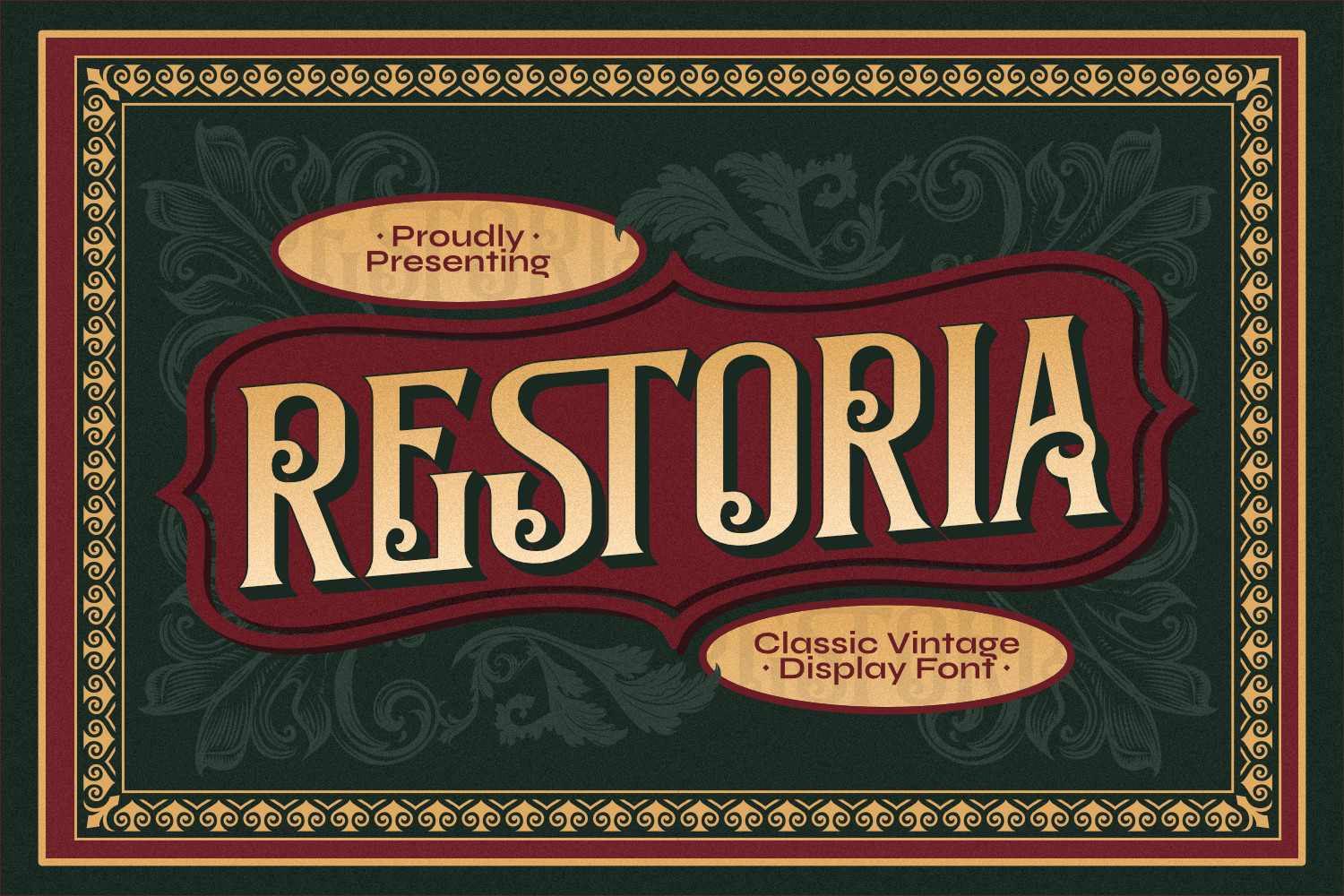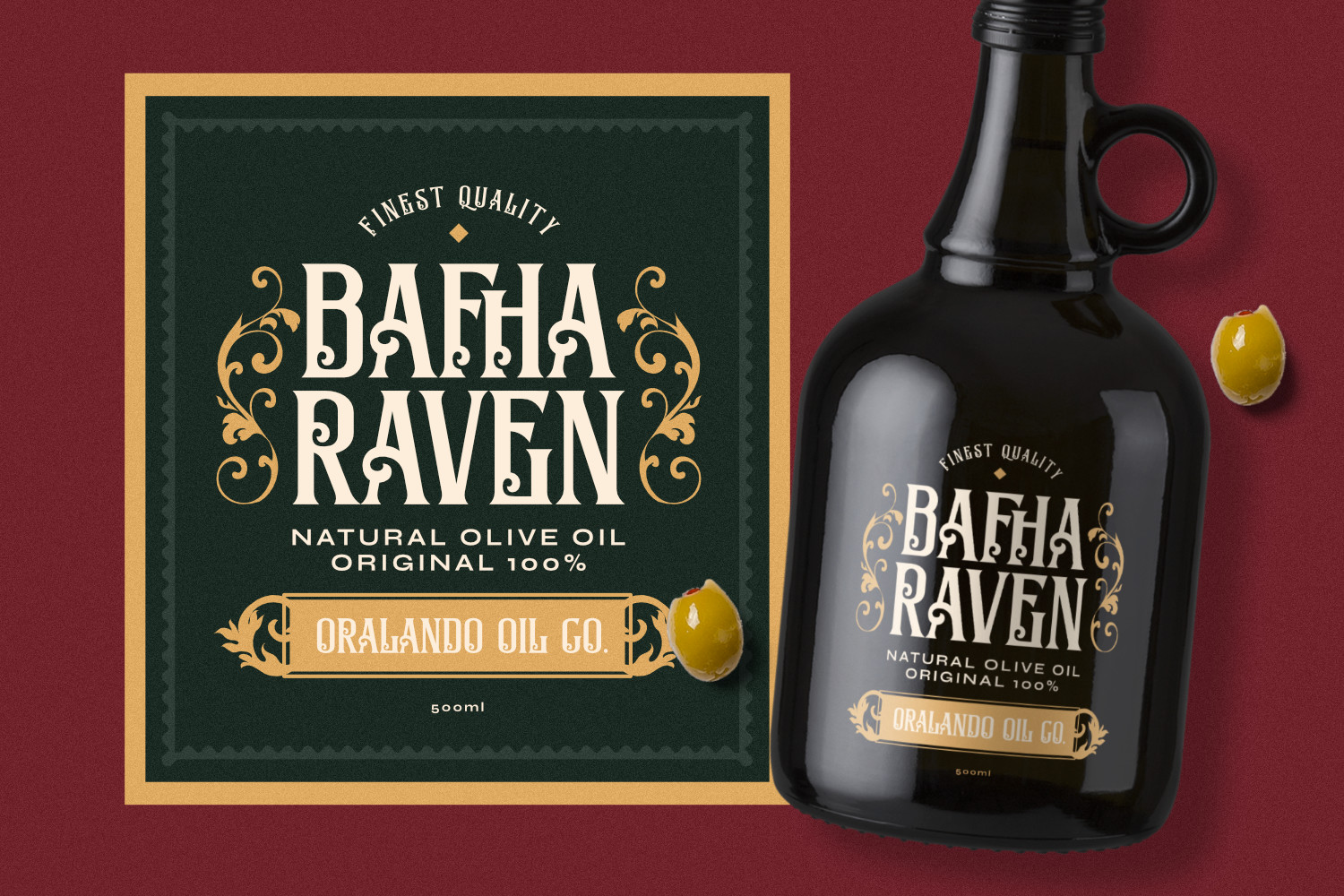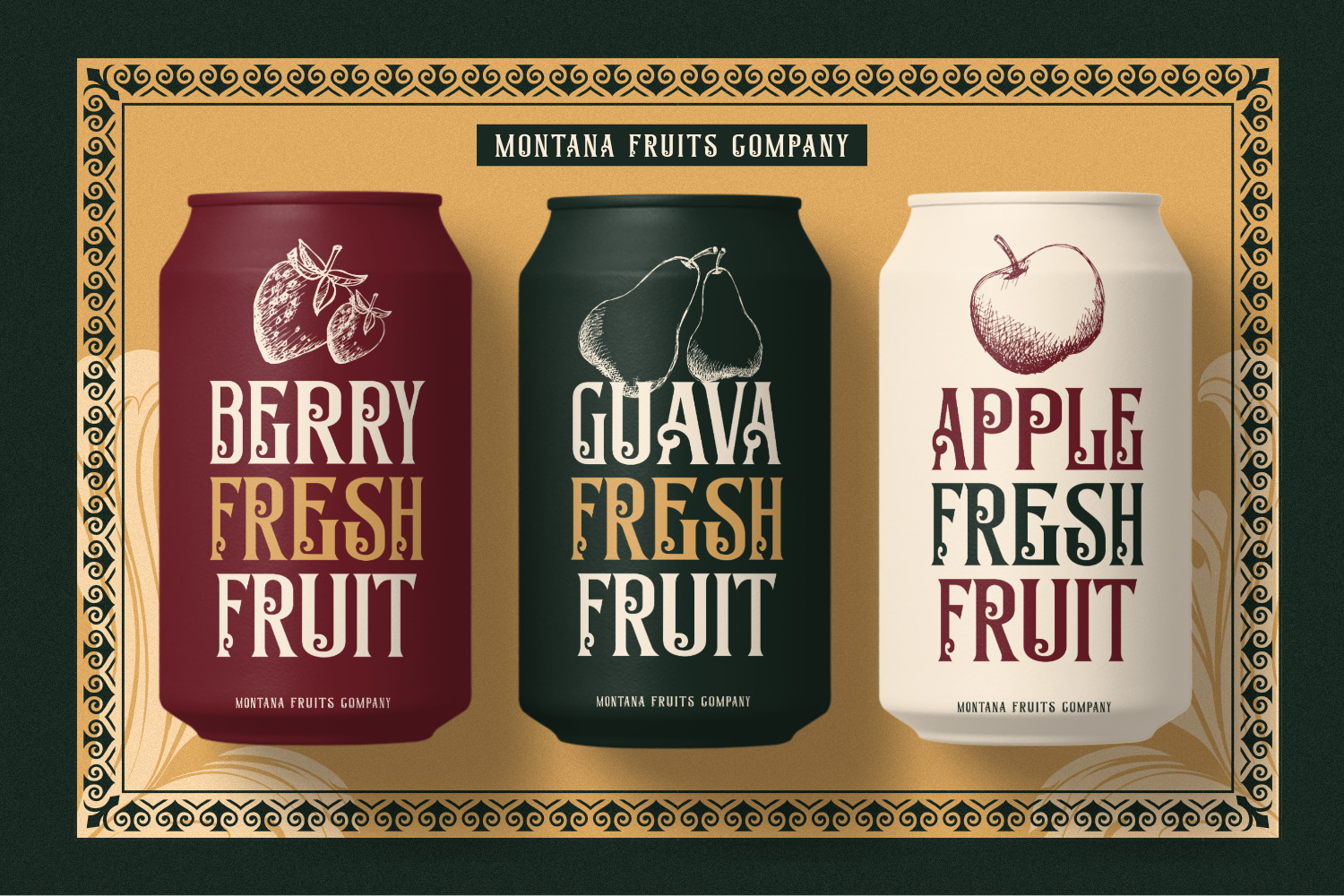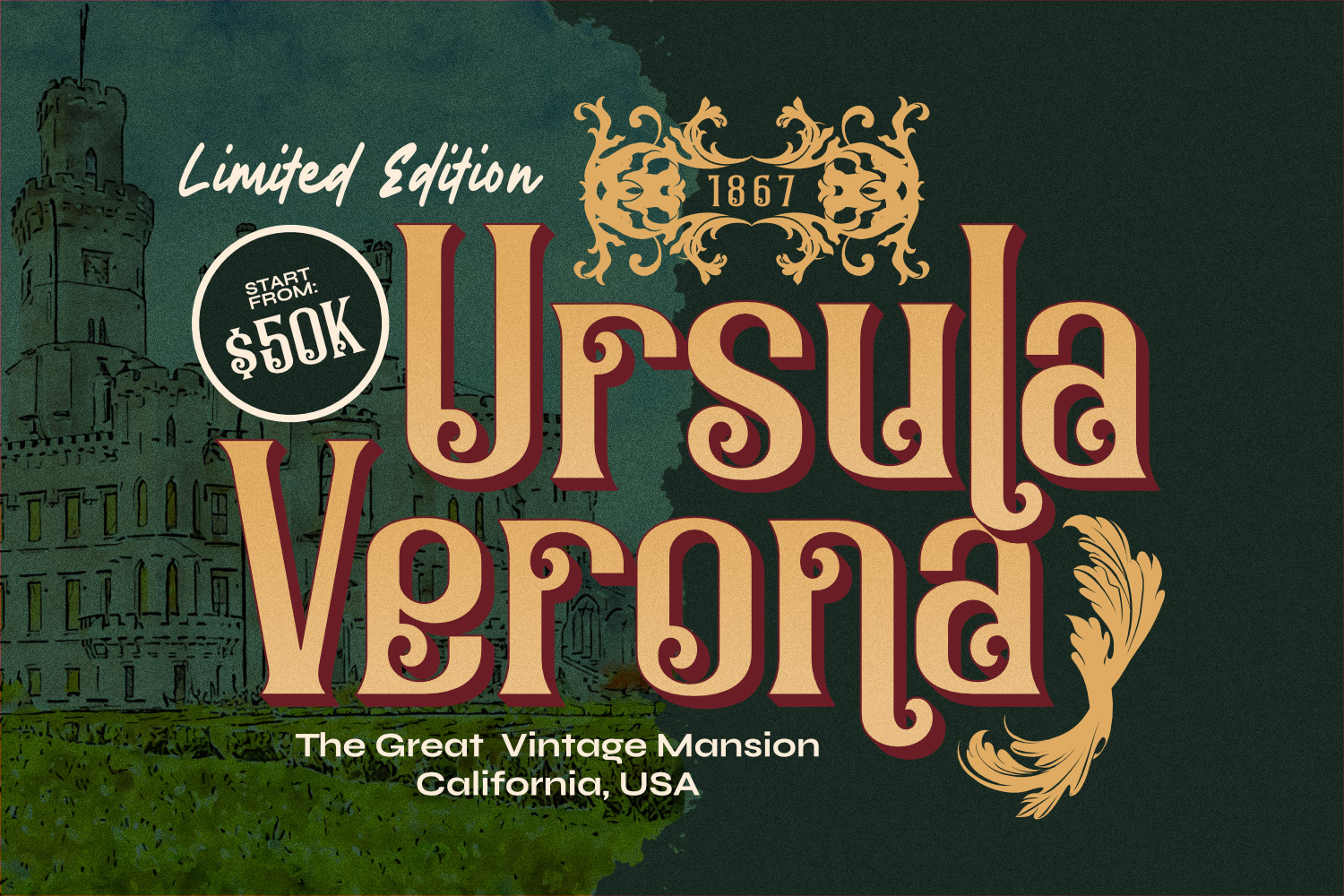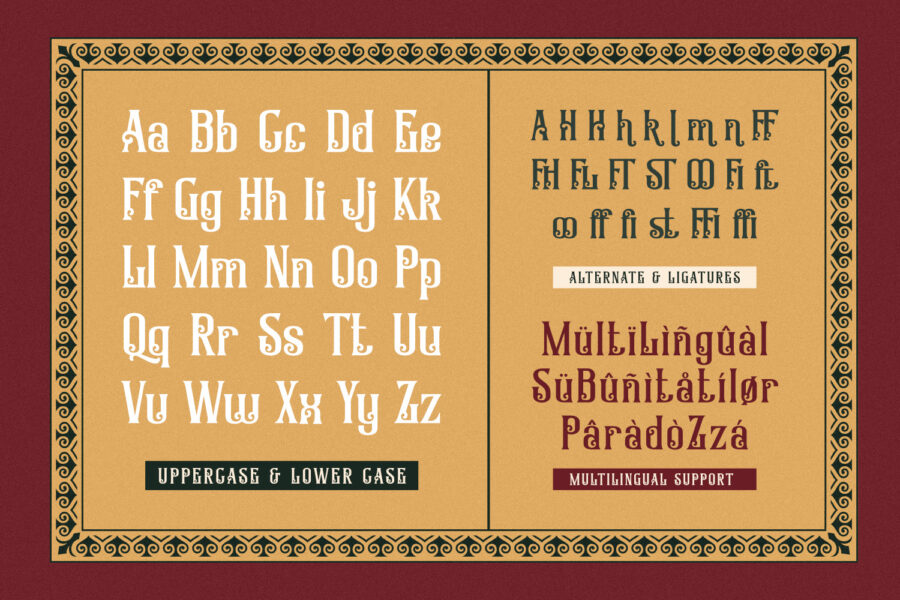
Restoria is a classic vintage display font inspired by ornamental serif styles from the 19th century. Its strong curves, elegant swashes, and high-contrast strokes bring a touch of heritage and sophistication to any design. This typeface is perfect for branding, packaging, liquor labels, vintage posters, and premium logos that require a traditional and distinguished feel.
Featuring a complete set of uppercase and lowercase characters, alternates, ligatures, and multilingual support, Restoria offers both functionality and artistic flair. Whether used on product packaging or editorial headlines, this font enhances readability while maintaining its decorative essence.